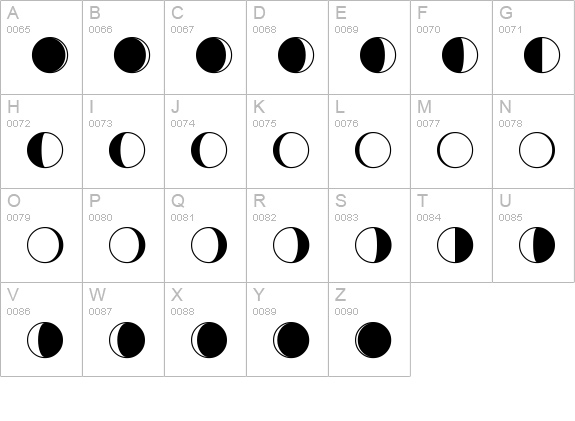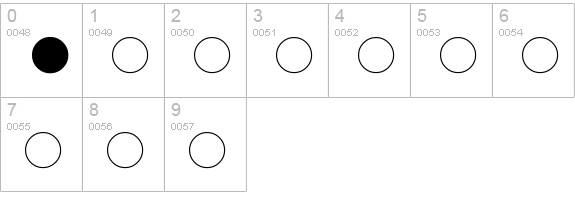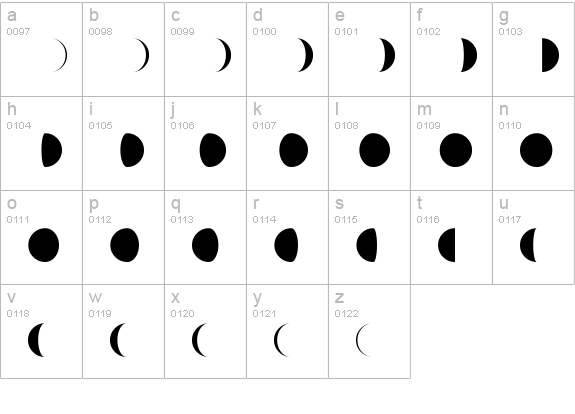
Moon Phases Font Details
Moon Phases font is a whimsical and captivating typeface that will add a touch of magic to any design project. With its unique and intricate lettering, this font is perfect for creating mystical and celestial-themed designs. The elegant curves and graceful strokes of Moon Phases font give it a mystical and otherworldly feel, making it ideal for use in branding, invitations, posters, and more. And the best part? Moon Phases font is completely free to download at FontsMarket.com. Whether you're a designer looking to add a magical element to your work or someone who simply appreciates beautiful typography, Moon Phases font is sure to inspire and enchant. Download it today and let your creativity soar to new heights with this stunning typeface.